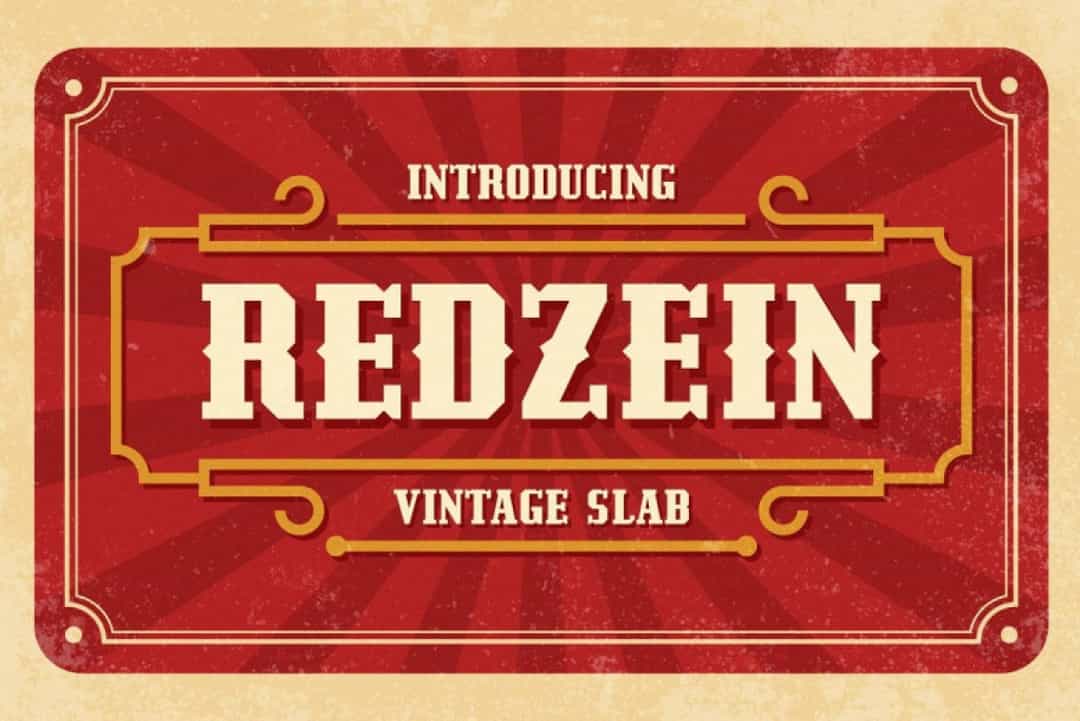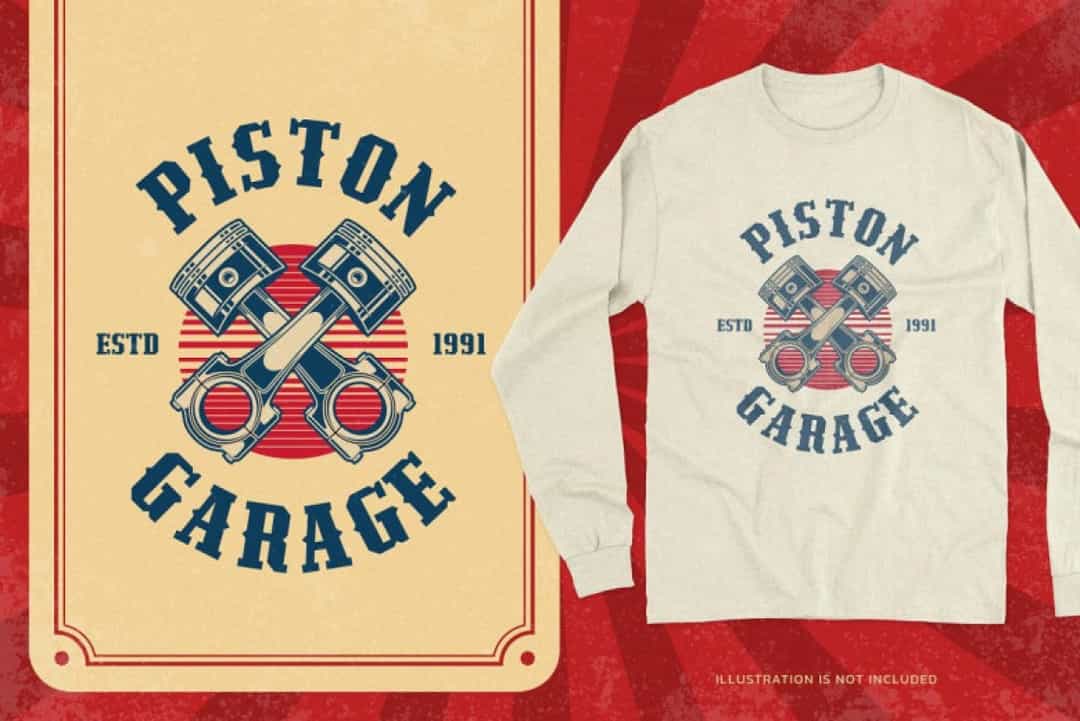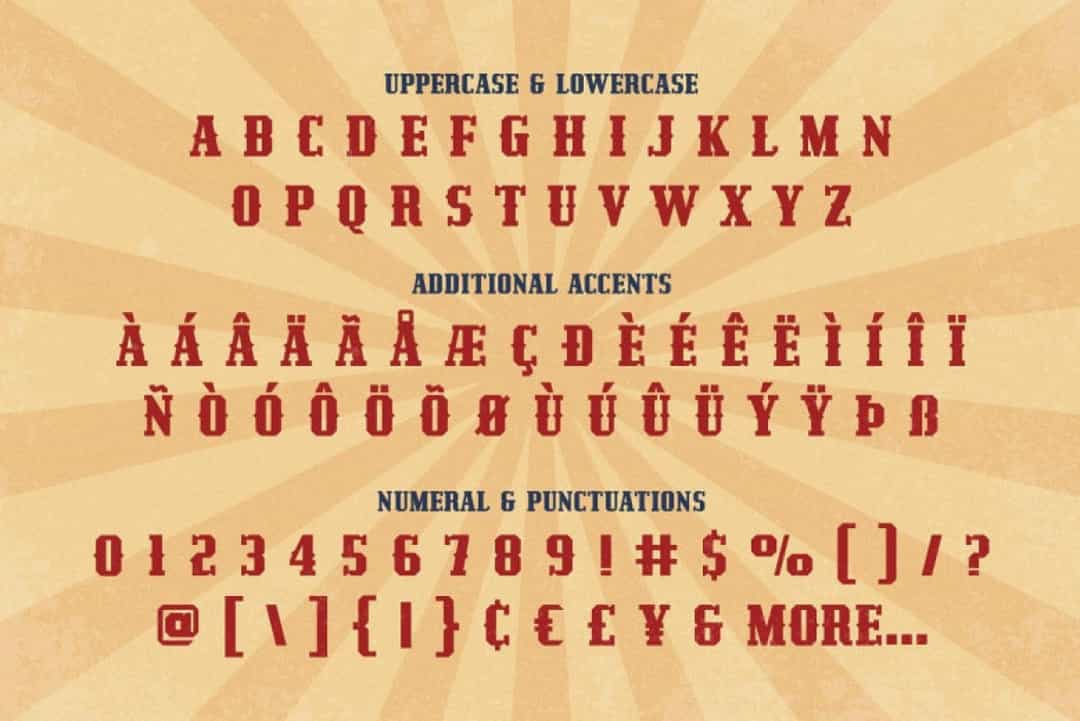
Redzein Font
Redzein Retro Display Slab Serifs offer vintage appeal that makes any logo more visually appealing, drawing inspiration from architectural and decorative arts movements. Redzein fonts are ideal for use in work settings and allow you to create stunning headlines, posters, logos, badges, tshirts and other designs that make a statement.